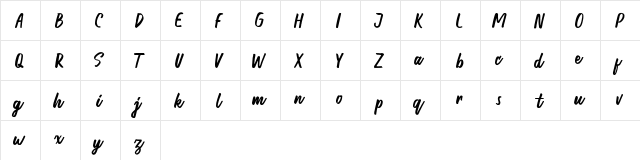
Honest Honest Font Preview
Honest Honest
Honest Honest Font Details
| Style | Honest |
| Foundry | Farul Arjianto |
| Designer | Farul Arjianto |
Design Context for Honest Typeface
Honest is a composed and adaptable typeface that performs quietly and consistently across a wide range of design contexts.